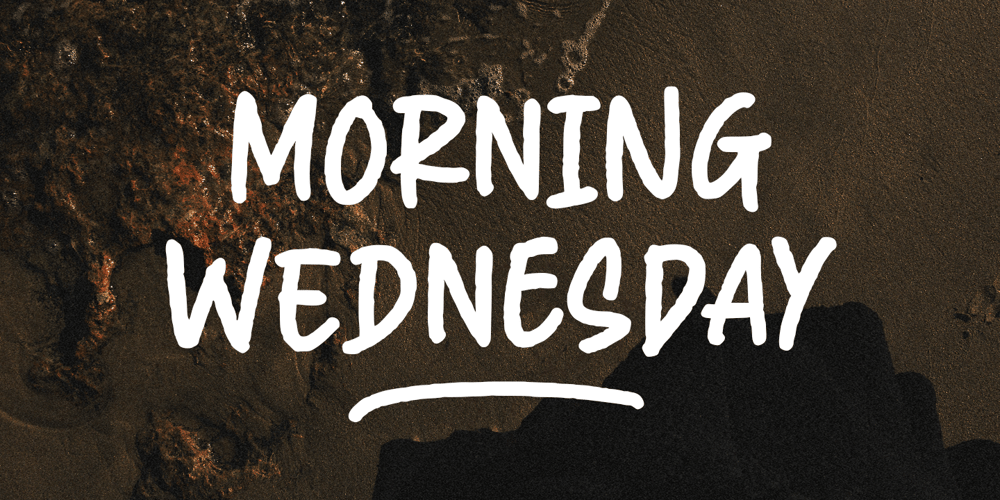
Morning Wednesday Font Family was designed by Novitasari Romli and published by Novitype. Morning Wednesday contains 2 styles and family package options. Introducing Morning Wednesday, a fun and playful handwriting font that’s perfect for adding a personal touch to your designs. This font is inspired by marker handwriting, and has a cute and natural look that’s perfect for feminine designs.This font is suitable for a variety of applications, including display, headlines, quotes, titles, short text, logotypes, branding, movies, posters, and social media posts.